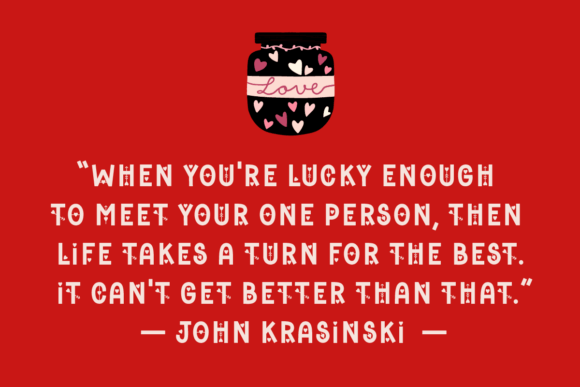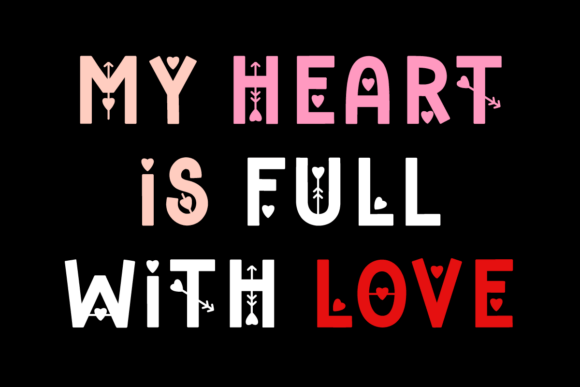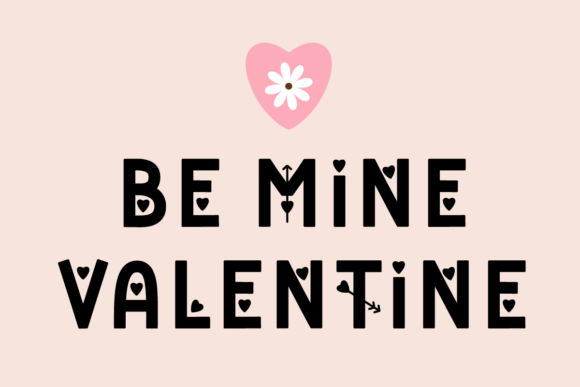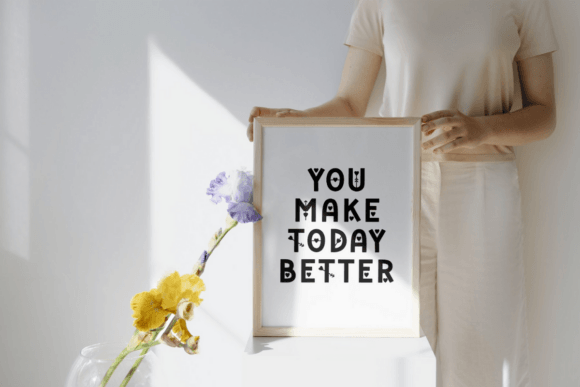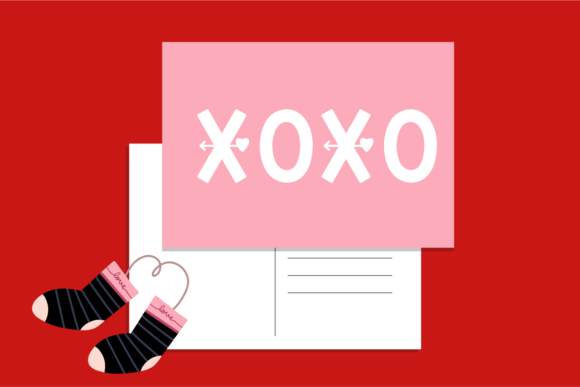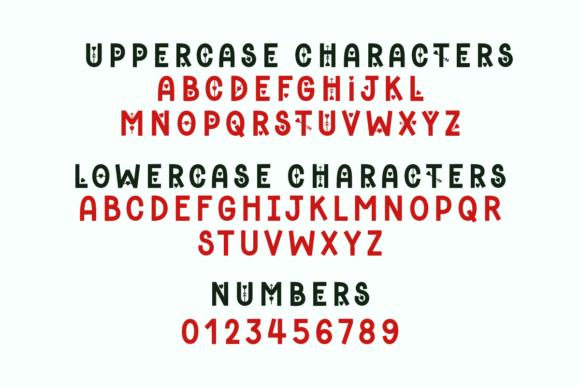
Introduction to Cupid Time Font
Who hasn’t found themselves rummaging through their digital archives for the perfect font to match their creative project? Whether it’s a Valentine’s Day design, a sweet gift for a loved one, or a playful quote to brighten up someone’s day, having the right font can make all the difference. That’s where the Cupid Time Font comes in – a delightful, high-quality decorative font that’s sure to capture hearts and convey the perfect sentiment.
As a valuable design resource, the Cupid Time Font offers a wide range of creative possibilities, from free downloads to high-quality prints. With its transparent background, this font is perfect for designing stickers, mugs, and invitation cards, or even creating playful posters and logos. Whether you’re a seasoned designer or a DIY enthusiast, the Cupid Time Font is an essential addition to your design toolkit.
Key Features of Cupid Time Font
- High-quality design resource suitable for various creative projects, including digital art and graphic design.
- Features a unique, playful design with a transparent background, making it ideal for layered designs and compositing.
- Supports a variety of languages, including English, Spanish, French, and many more.
- Perfect for designers looking for a fun, whimsical font to add a touch of romance and elegance to their designs.
Honest Review: Cupid Time Font
As a designer, I’m always on the lookout for unique and high-quality design resources. The Cupid Time Font is one such find that caught my attention. I decided to give it a try and here’s my honest review.
- Unique and playful design: The Cupid Time Font is a great addition to any creative project, adding a touch of whimsy and romance.
- High-quality design: The font is well-designed and visually appealing, making it perfect for a variety of design applications.
- Transparent background: The transparent background option allows for seamless integration with other design elements.
- Limited character set: The font’s character set is limited, which may not be suitable for complex or lengthy text-based projects.
- No bold or italic options: While the font is cute, it would be great to have bold and italic options for added versatility.
Overall, I’m impressed with the Cupid Time Font’s unique design and high-quality design. While it may have some limitations, it’s a great resource for designers working on creative projects, especially those requiring a romantic or playful tone. I’d definitely recommend giving it a try!
Cupid Time Font
The Cupid Time Font is a versatile design resource that can be used in a variety of creative projects, including invitations, social media graphics, and web design. To get the most out of it, use it in conjunction with other high-quality design elements, such as images and graphics. Some common use cases include:
– Creating romantic invitations and cards
– Designing social media graphics for Valentine’s Day and other romantic holidays
– Adding a touch of whimsy to web design and other digital